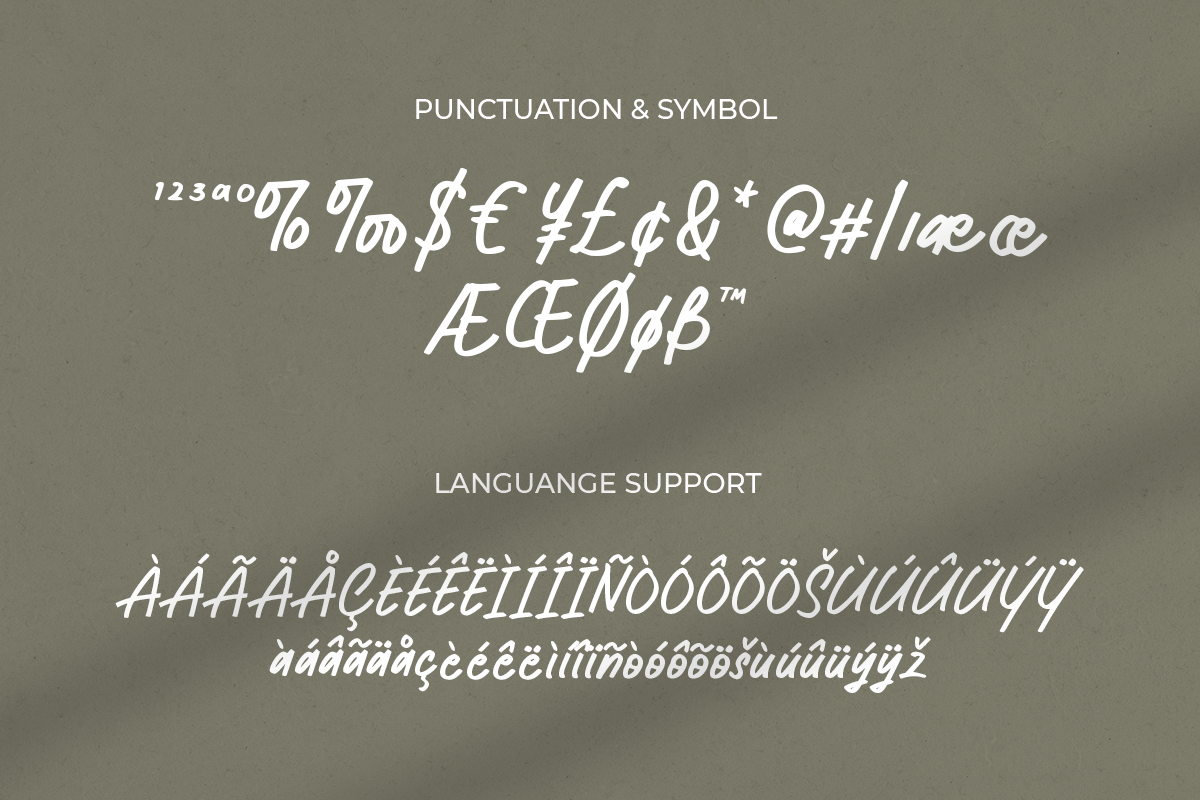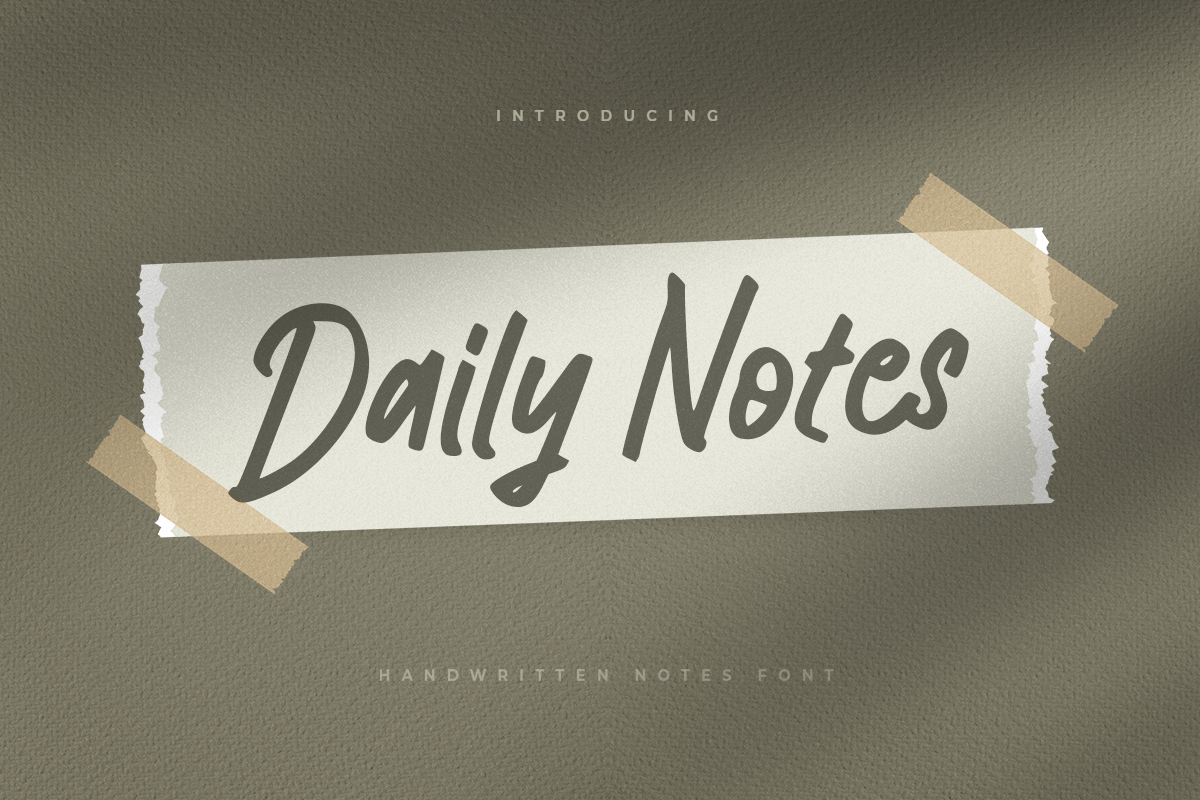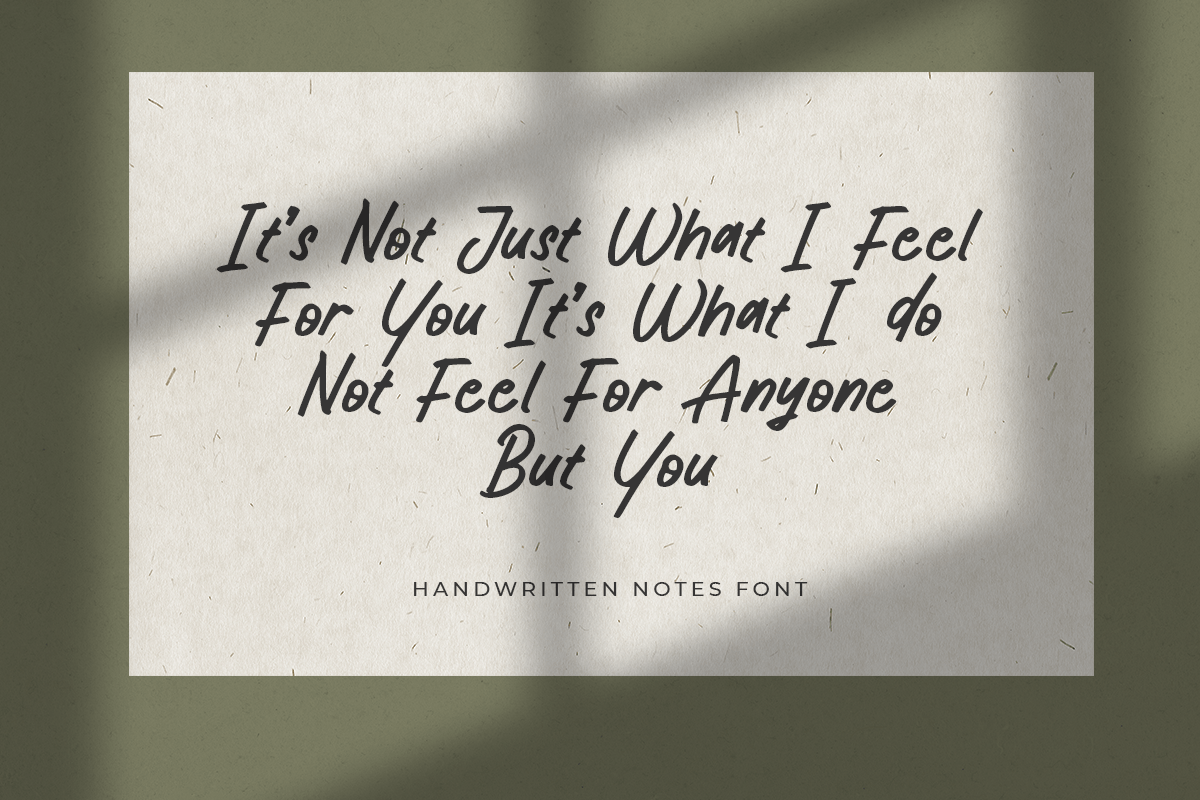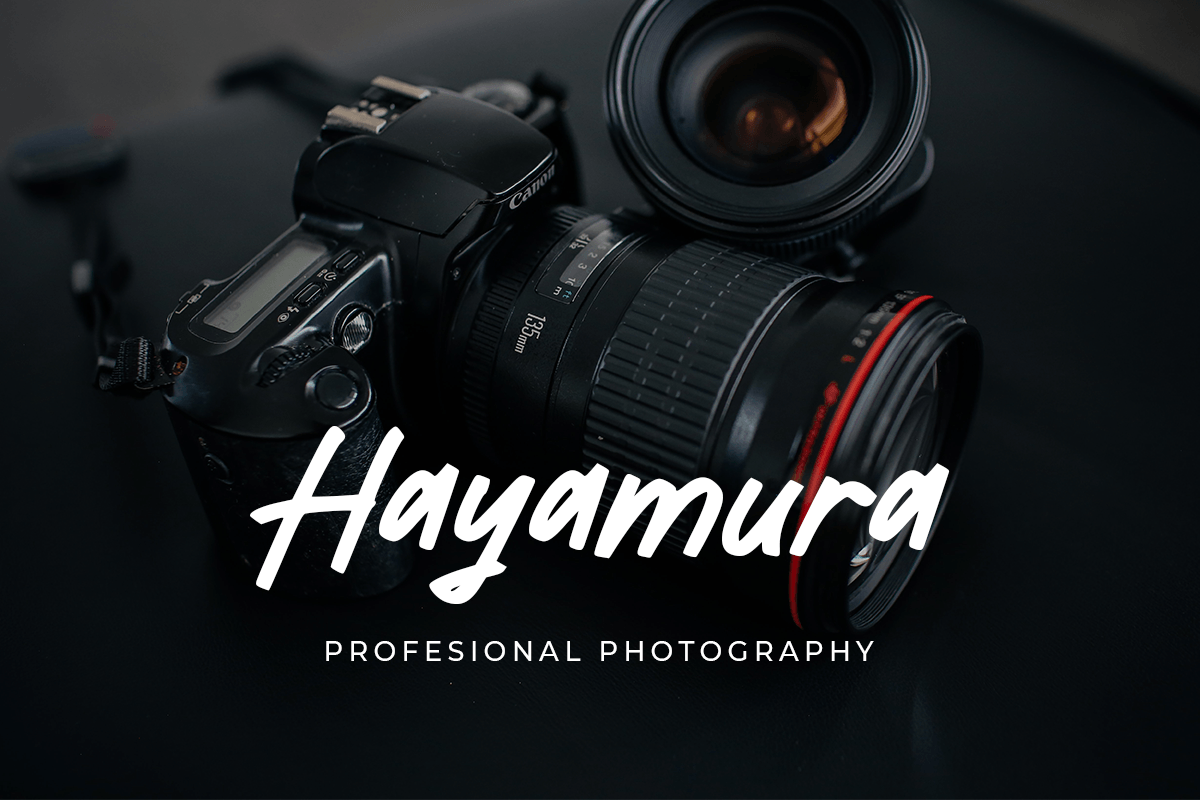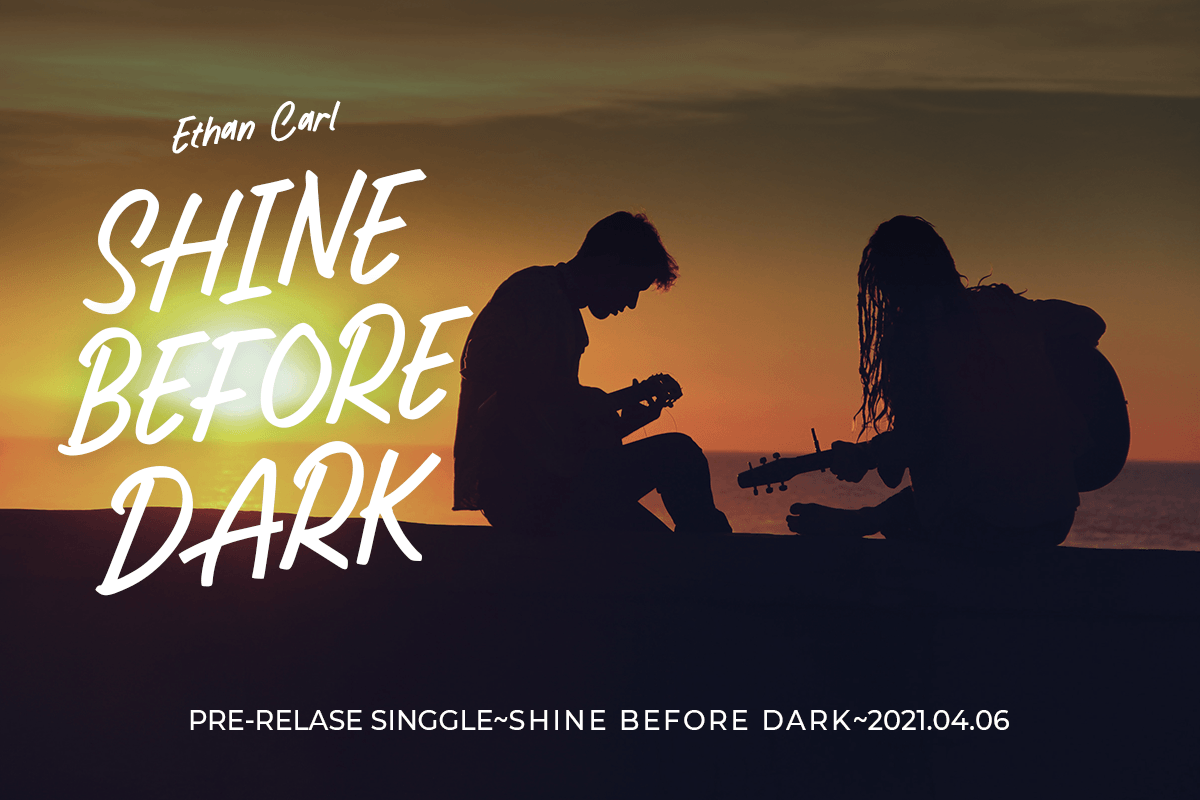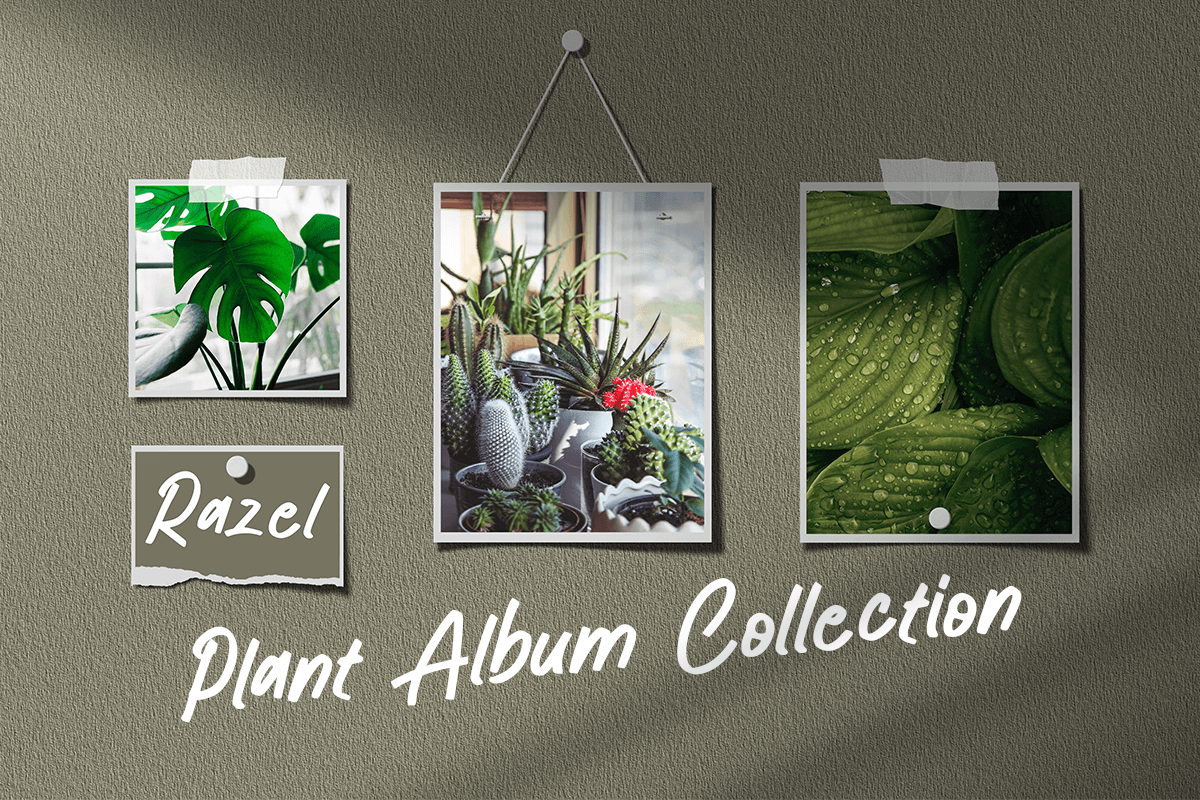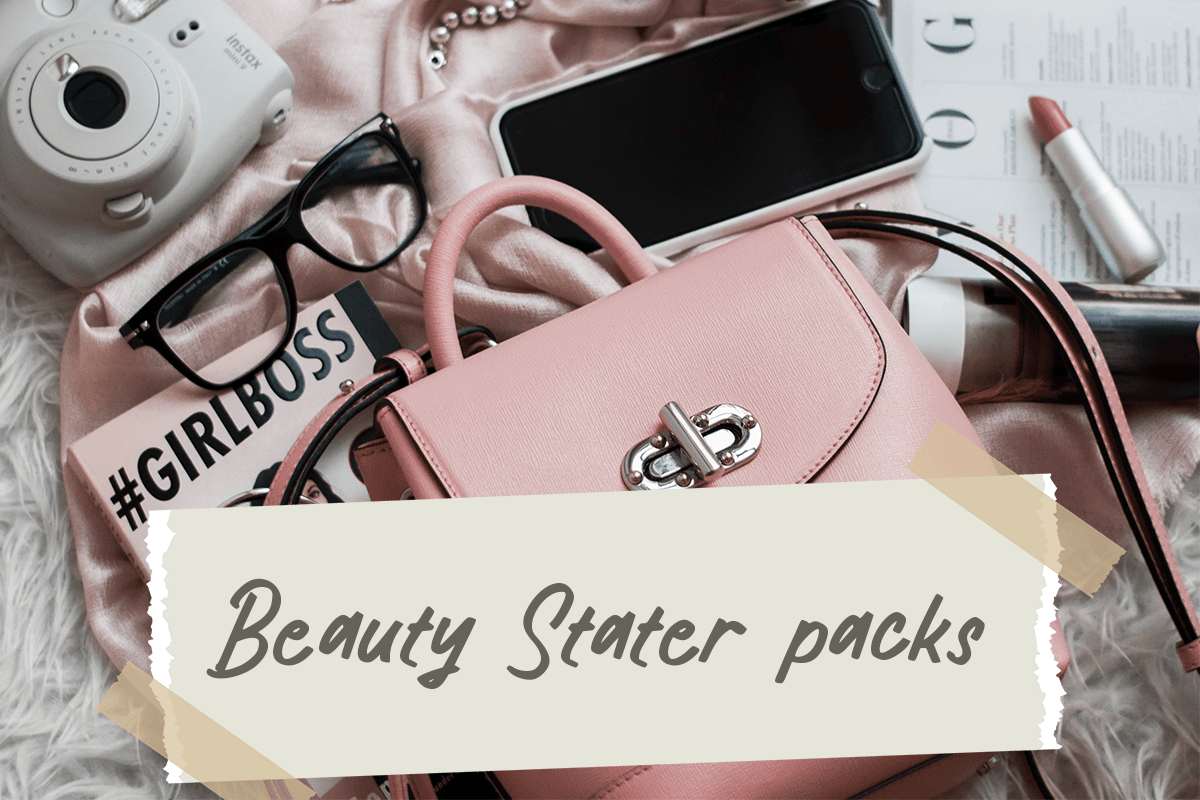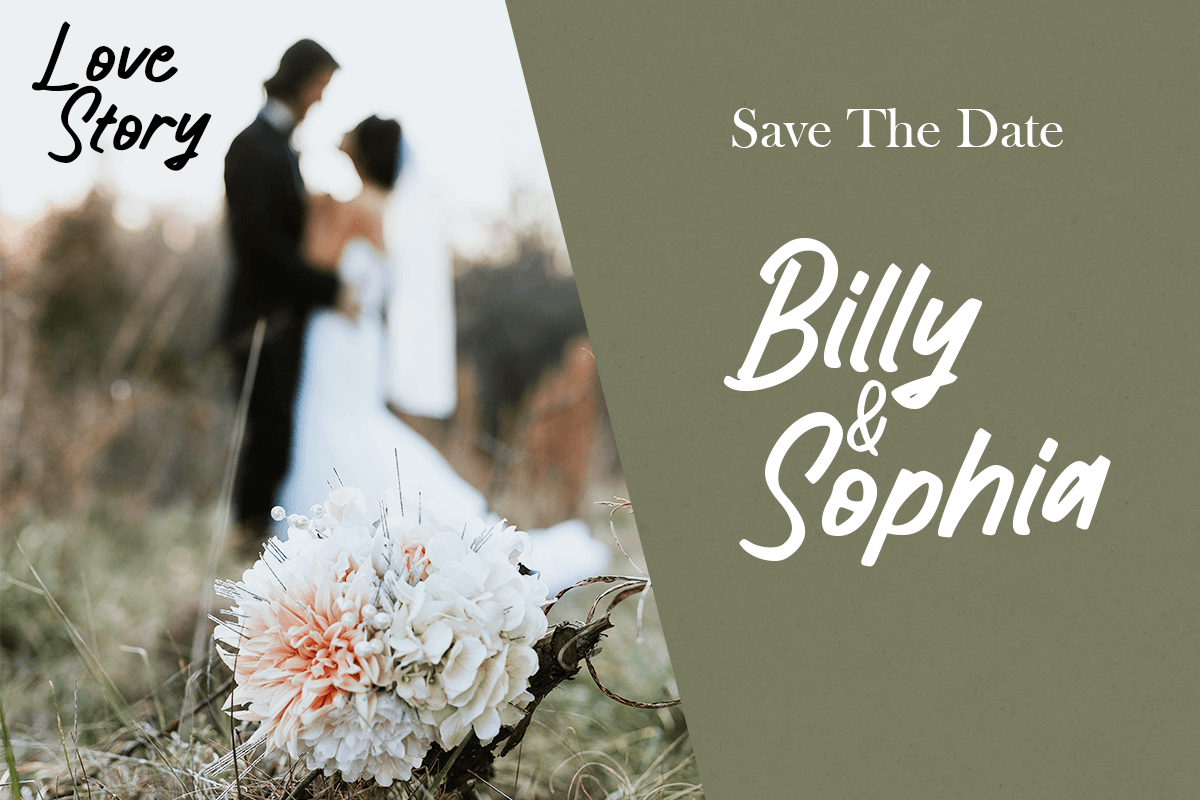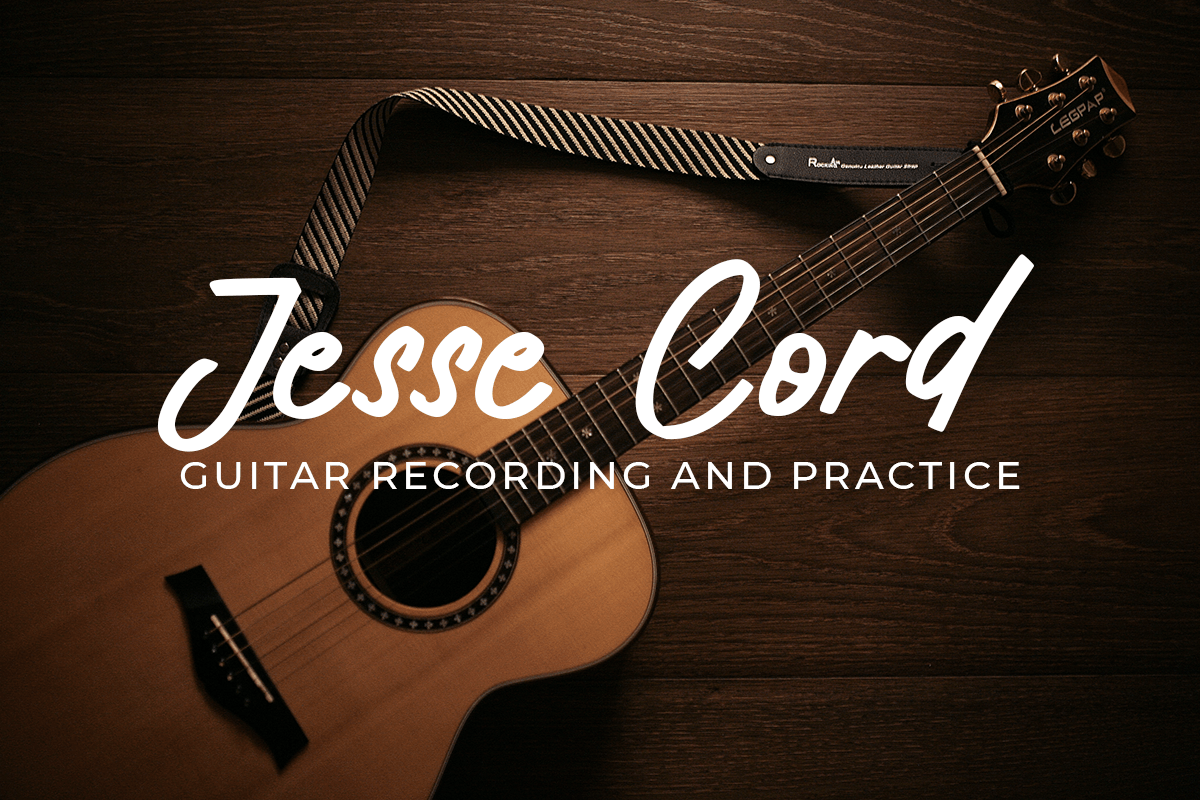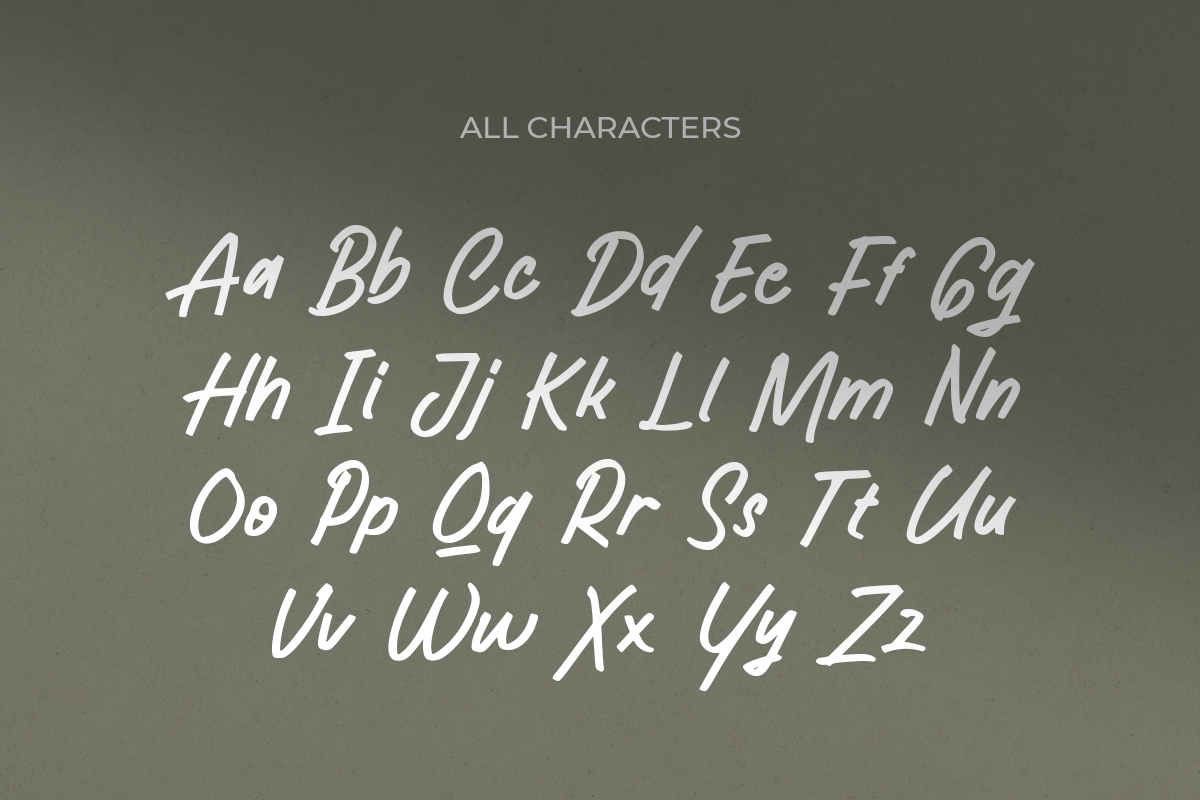
Daily Notes
-Handwritten Notes Font
Daily Notes
Daily is A Professional Handwritten Notes Font with natural and unique feels. This font specially crafted for your branding, quotes design projects or logo, unique, modern bohemian feels for any designs such as digital design, merchandise, and so many more with easy to use but unique results are so natural as handwritten.
Enjoy to Design any your needs with natural and unique feels.